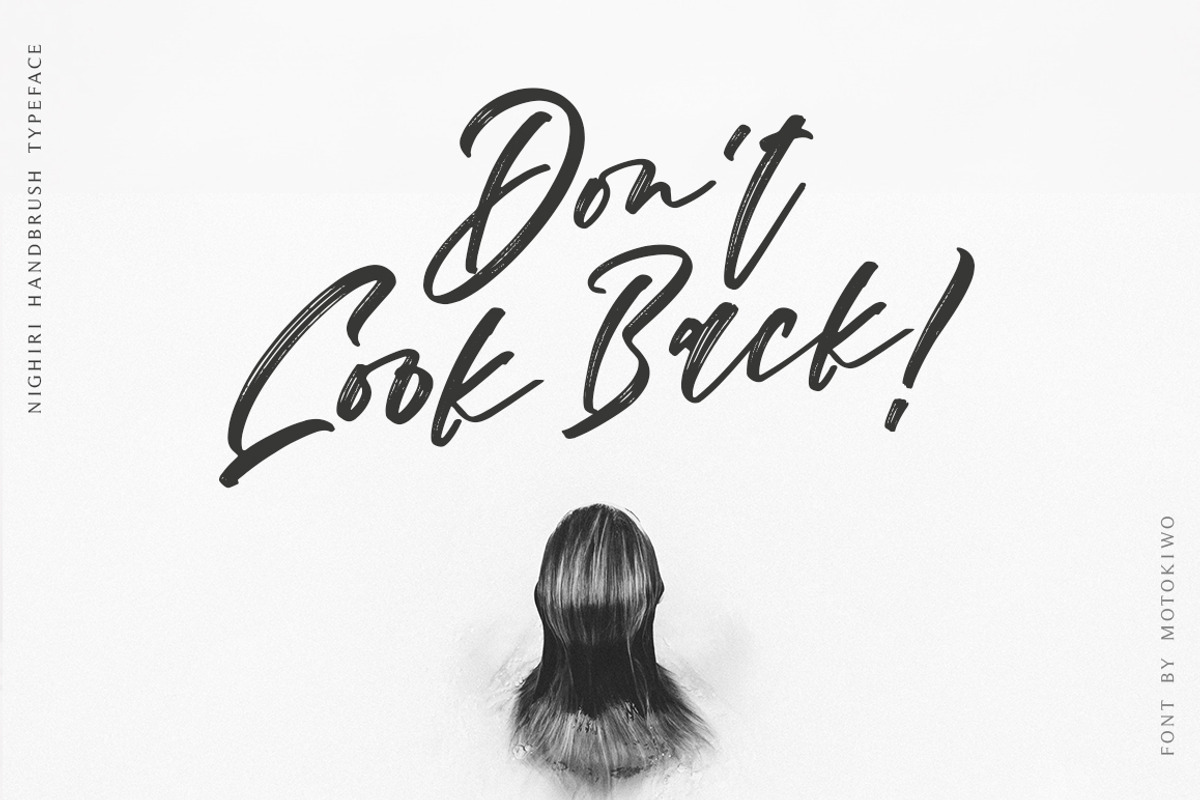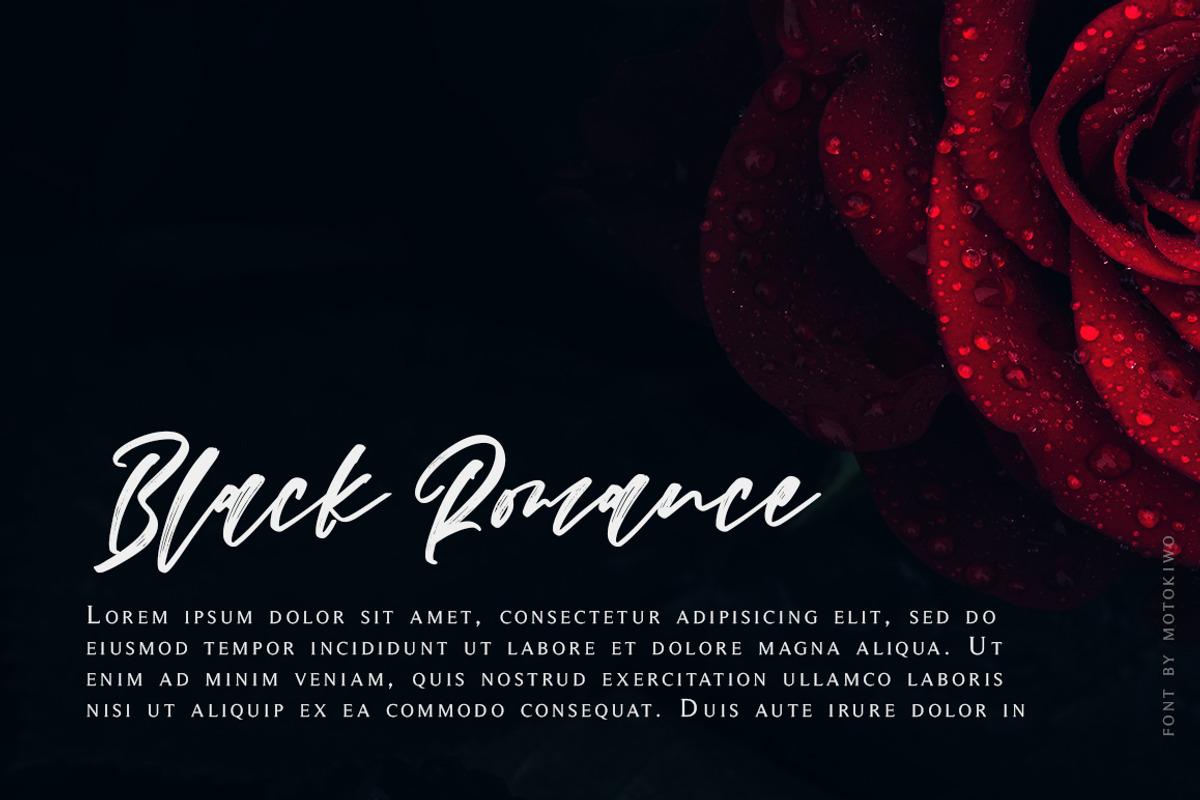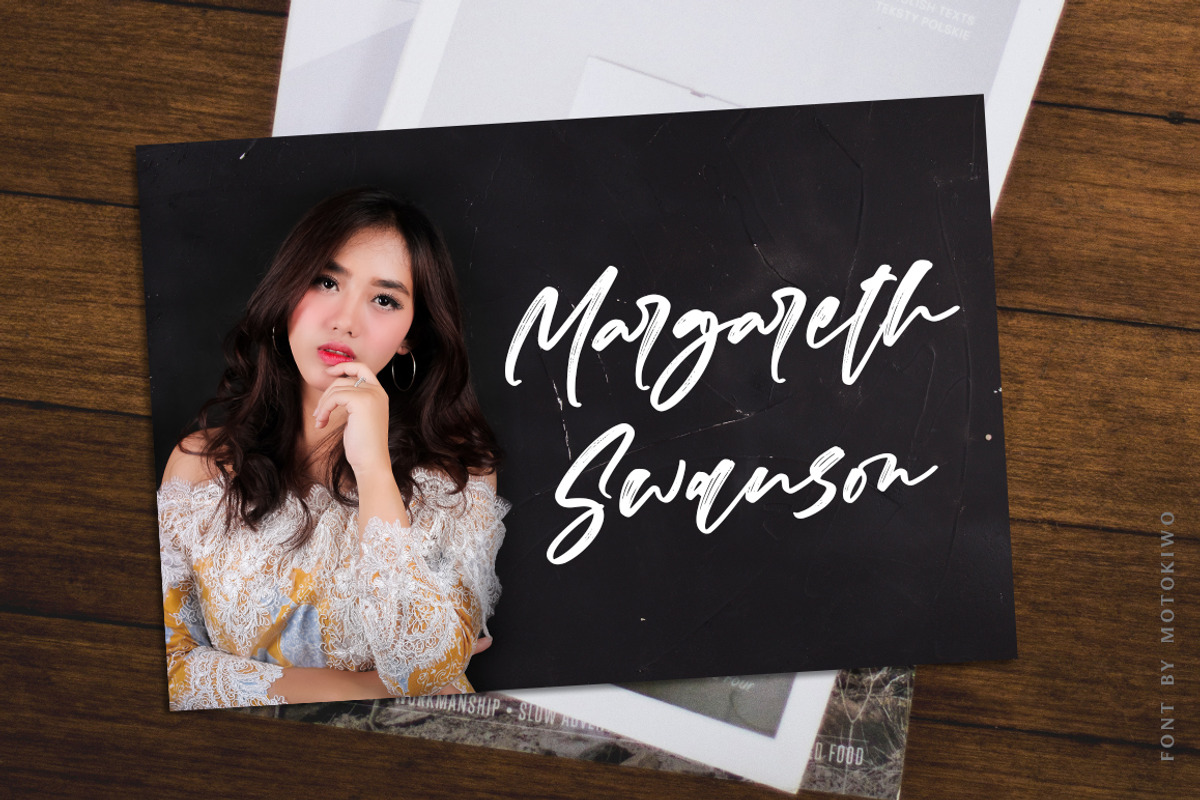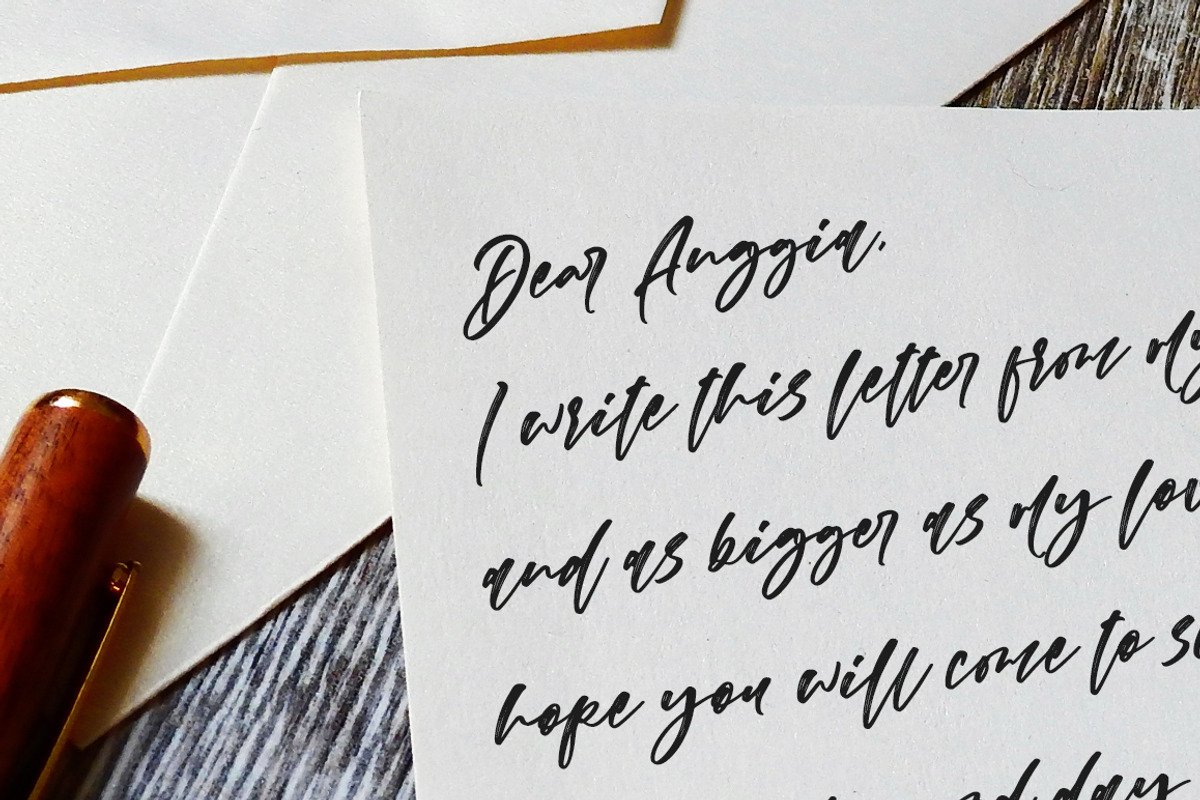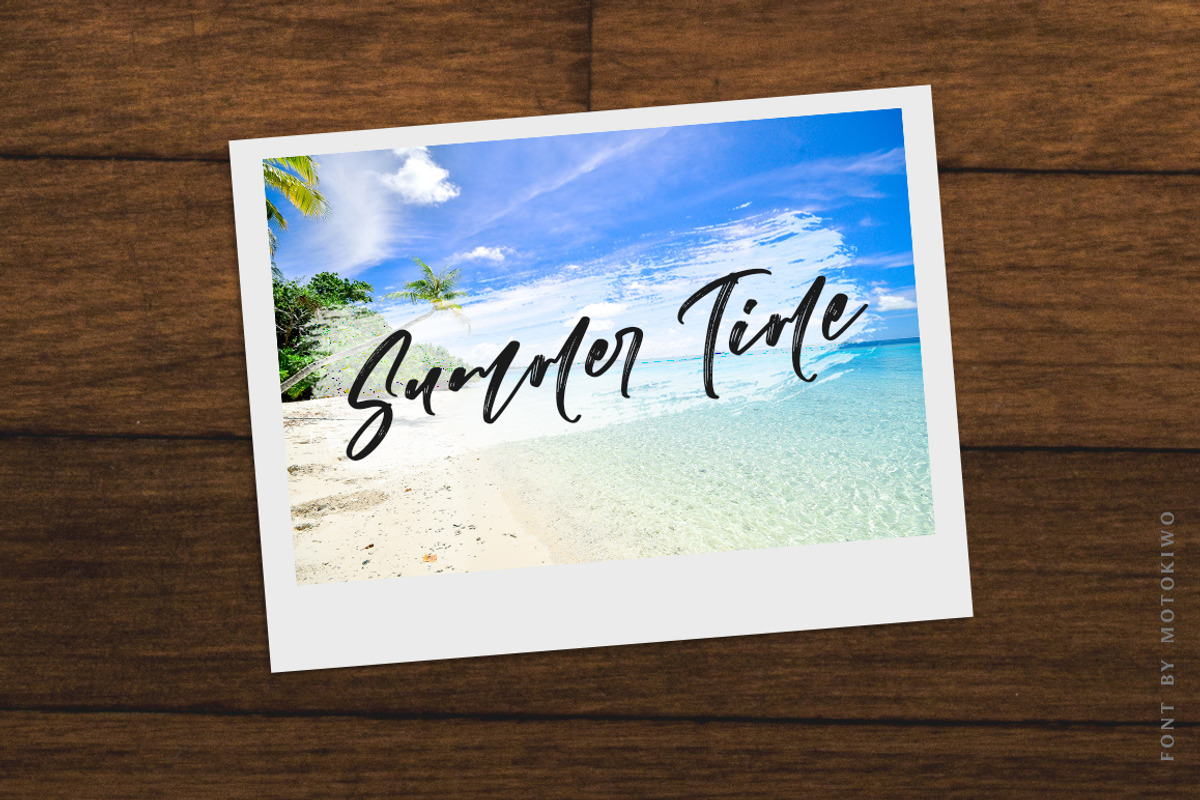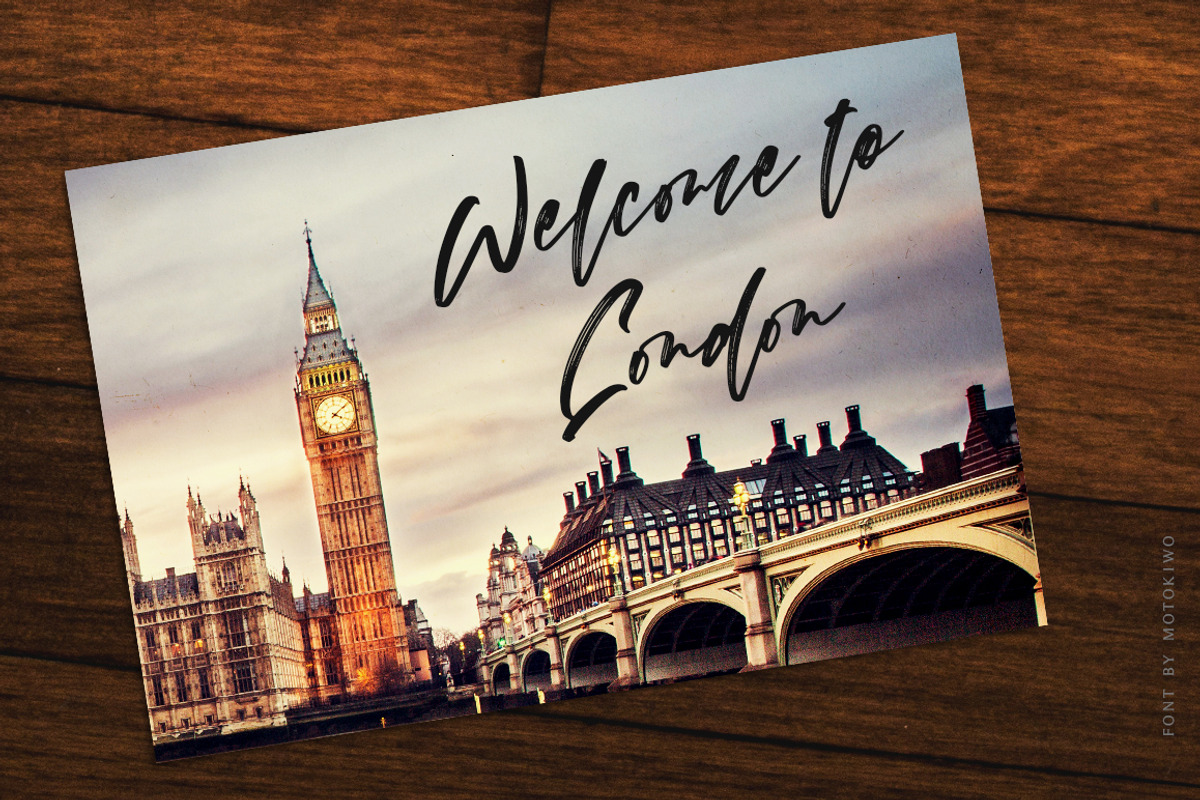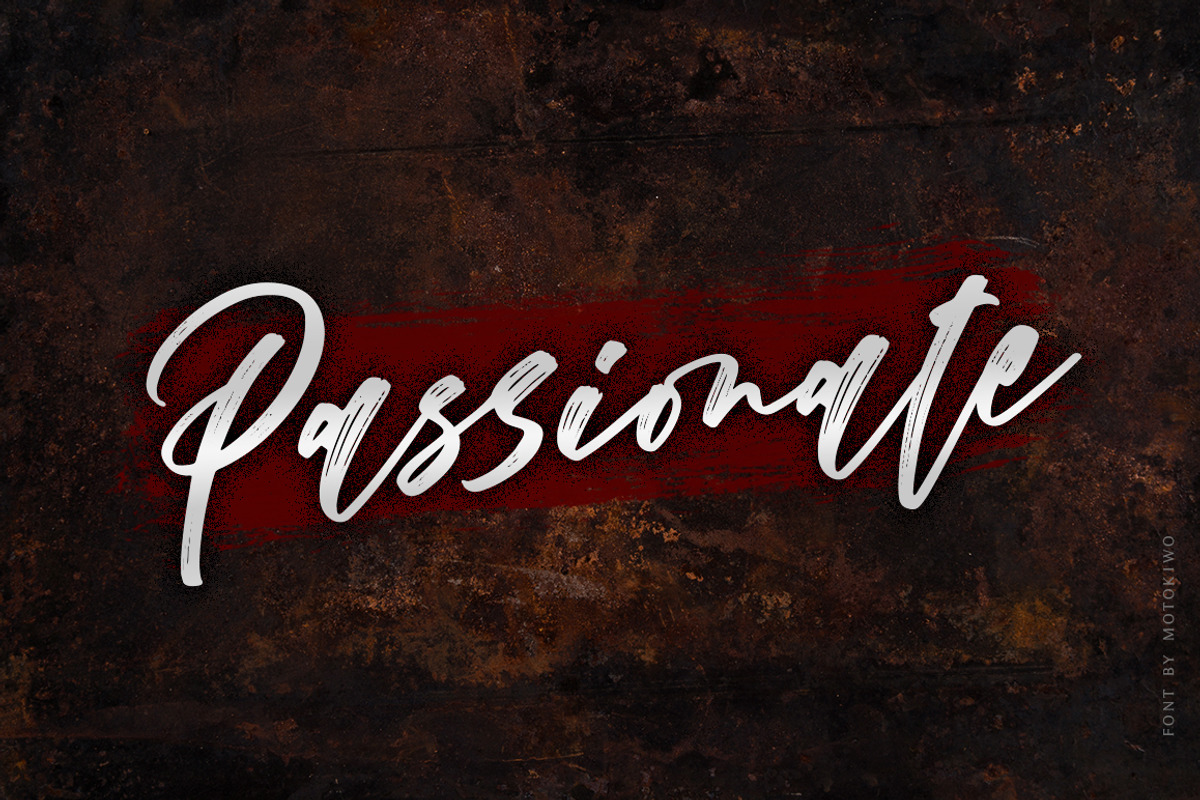
Nighiri - Handbrush Typeface
Nighiri, a classy and elegant handbrush signature typeface that will shine for multipurpose project. Nighiri very recommended for poster, logo, headline, quote, wedding, branding, fashion, or anything else you want. It's good for display or just a text.
Nighiri - Handbrush Typeface by Motokiwo fits naturally into Branding, posters, packaging, typography.